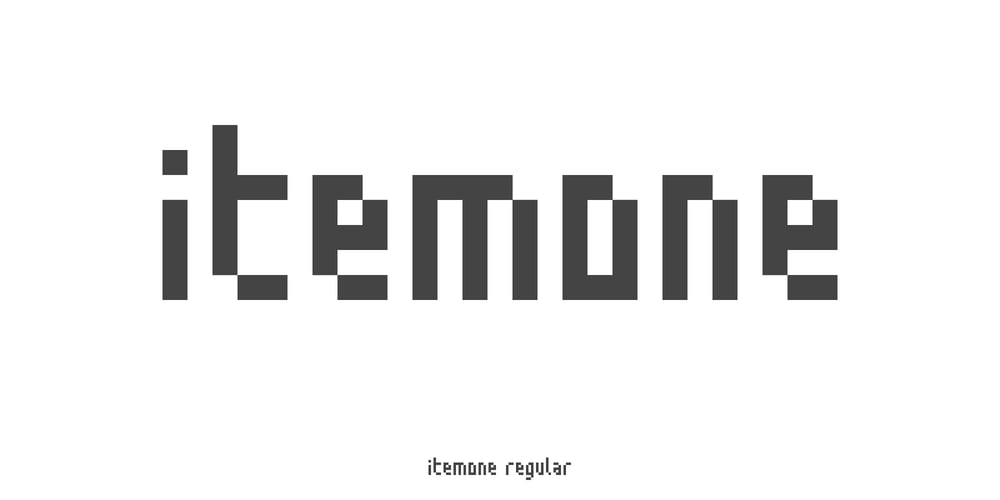
Itemone
Itemone font
Itemone Font Family was designed by Torben Holm and published by oneType. Itemone contains 6 styles and family package options. Itemone is a pixel-based typeface consisting of 6 styles. It is suitable for posters, flyers, t-shirts, magazines and more, giving your designs a cool contemporary look.The main parts of each character in the monoline font, including counters, can be drawn using a single line. This has been the main principle in the design of this geometric typeface, giving each font a very distinct look. All of the five fonts have been designed on the same pixel grid with an x-height of five units.Each font in this typeface consists of 250 characters, including uppercase and lowercase characters and two sets of numerals.